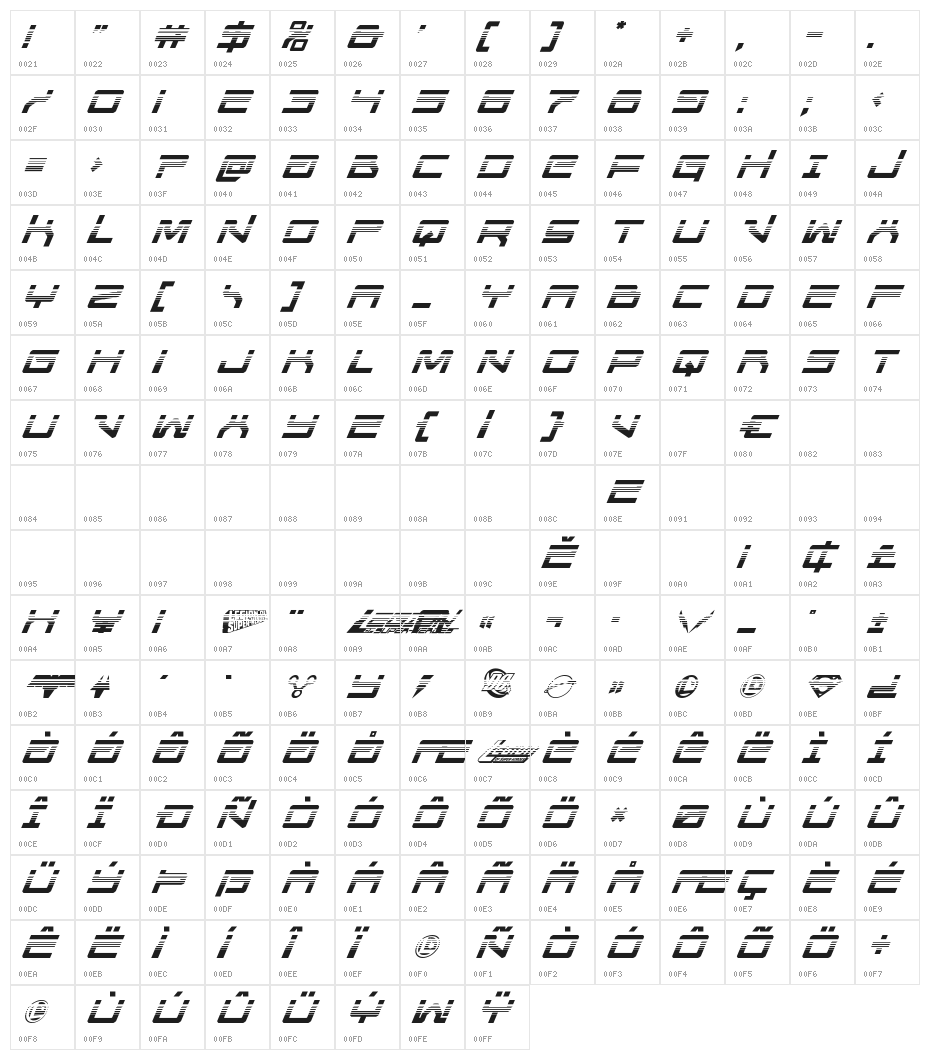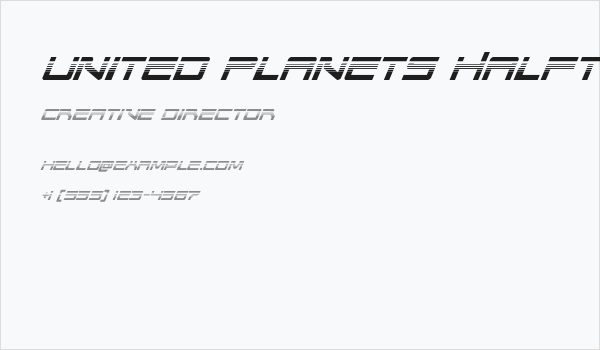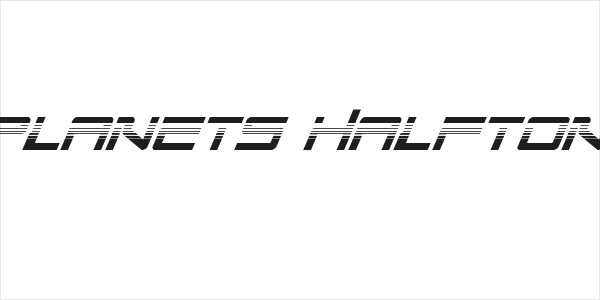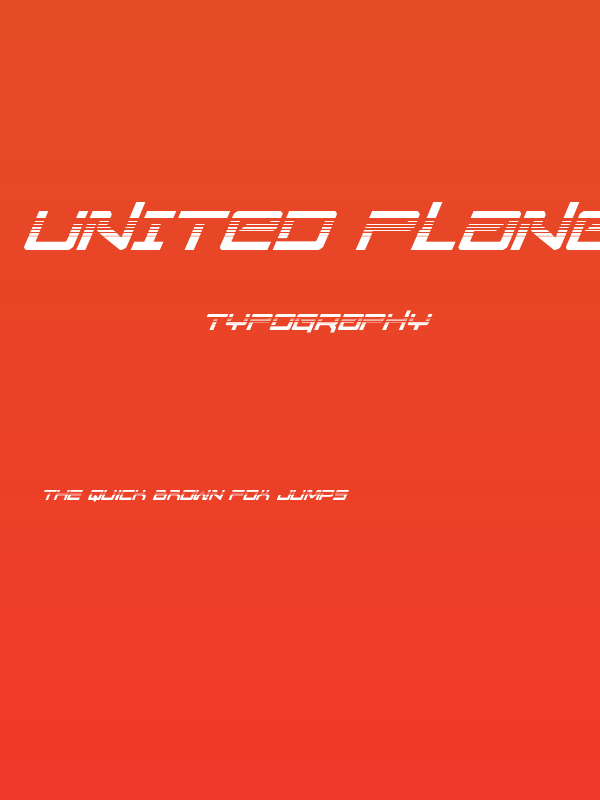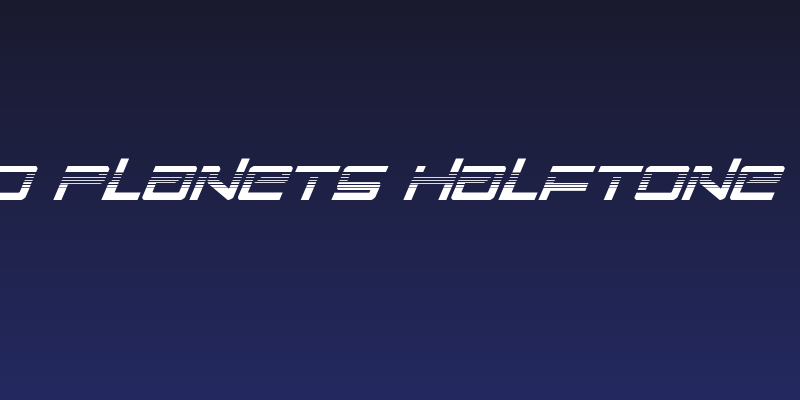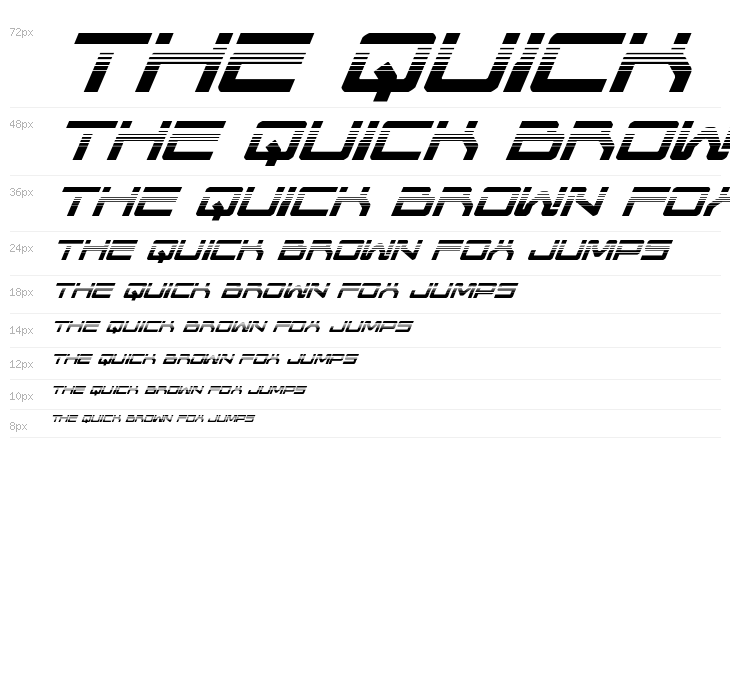
United Planets Halftone Italic Font
United Planets Halftone Italic Description
This font features a futuristic and dynamic design, characterized by its italicized and halftone style. The letters are constructed with a series of parallel lines that create a sense of movement and speed, making it ideal for projects that require a modern and edgy look. The uppercase and lowercase letters maintain a consistent style, with sharp angles and a sleek appearance. The numbers and special characters are designed to match the overall aesthetic, ensuring a cohesive look across all text elements. This font is perfect for use in digital media, sci-fi themes, and technology-related projects.
Proposed ProjectsIdeal for sci-fi movie posters, tech company branding, video game titles, and digital media.